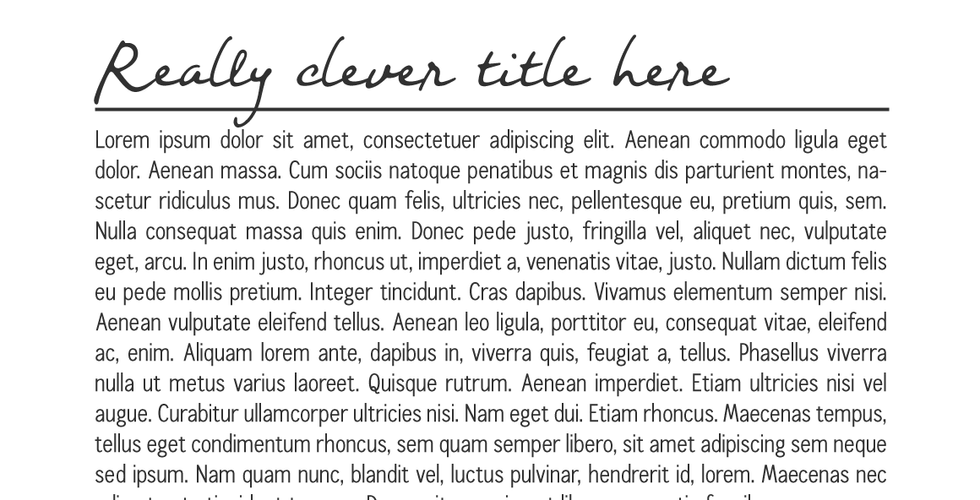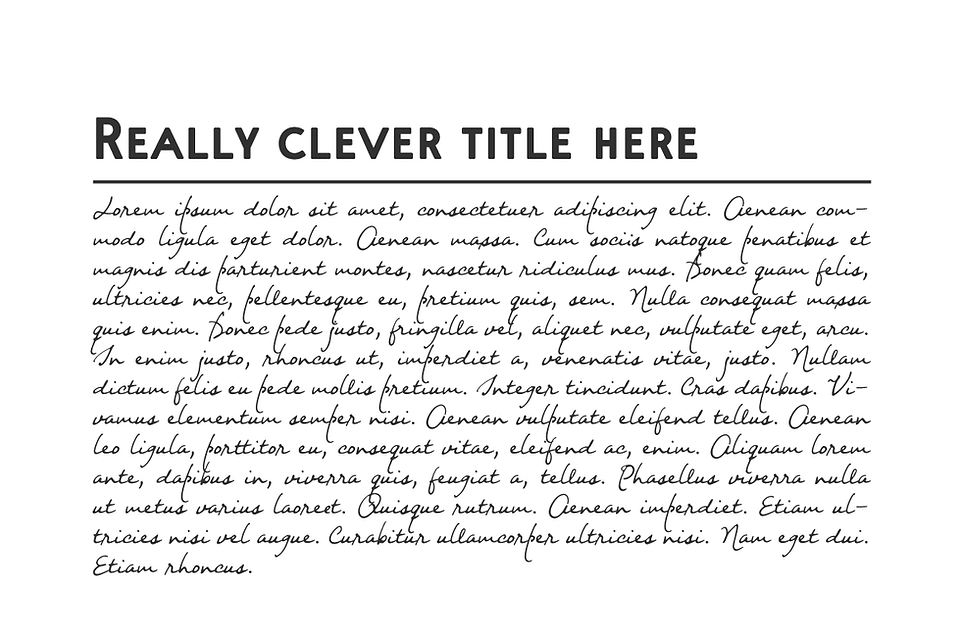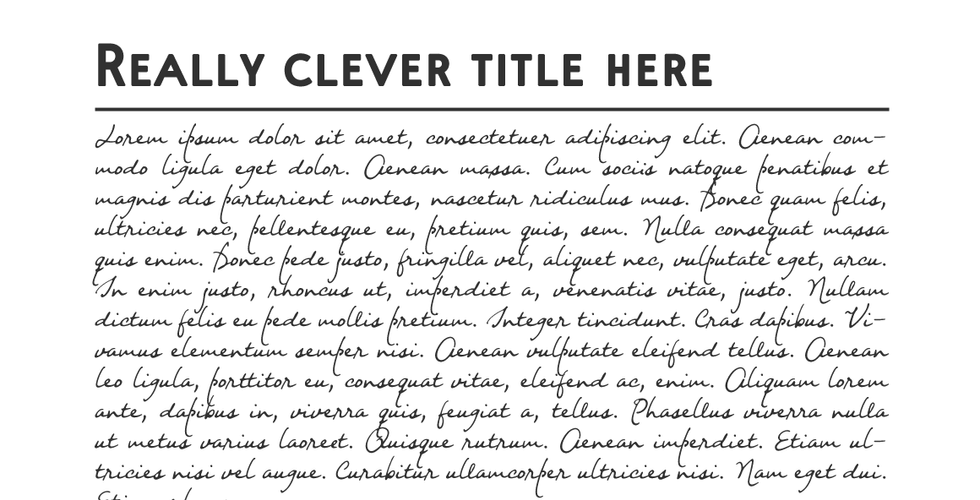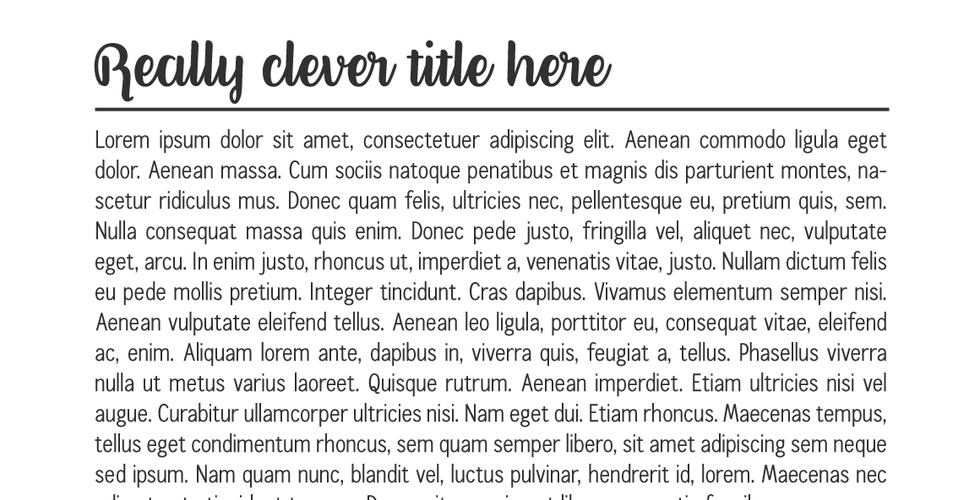
Font Pairings
Here are a few font pairings that I think look great. I'm using my own fonts, but you can easily replace them with others of the same style. Some pairs are more traditional, some are more unusual. Check them out below (click for full size and description):
Better Phoenix + Calling Cards
In addition, there are the never go wrong pairings:
Font families: the fonts in a font family are designed to go well together, so you can trust that they'll pair well. With the added bonus that usually you'll be getting several possible pairs! I think this is great for something like a CV or a cover letter.
Hand-lettered display font with a formal text font: one of my favorite combinations. Hard to get wrong, in my opinion, and great for just about any use.